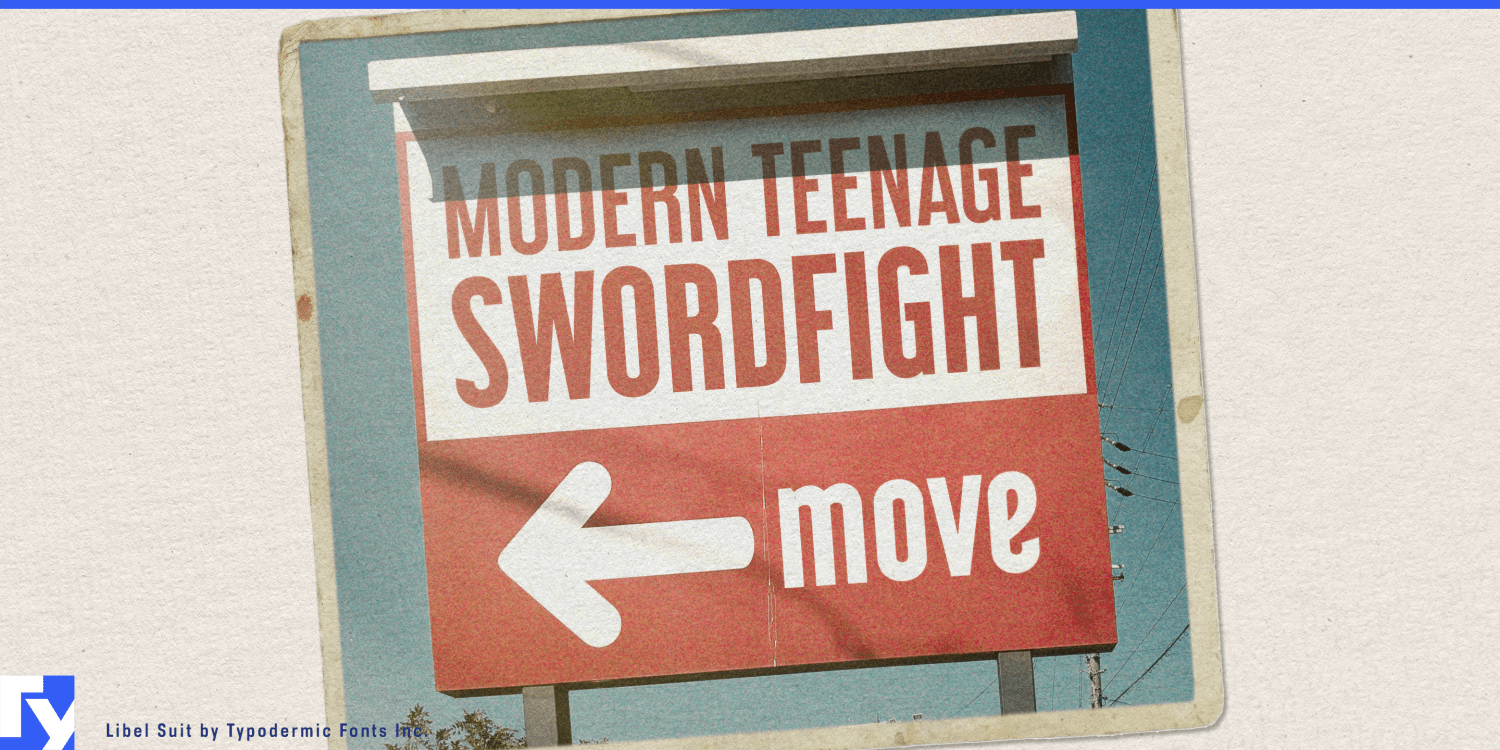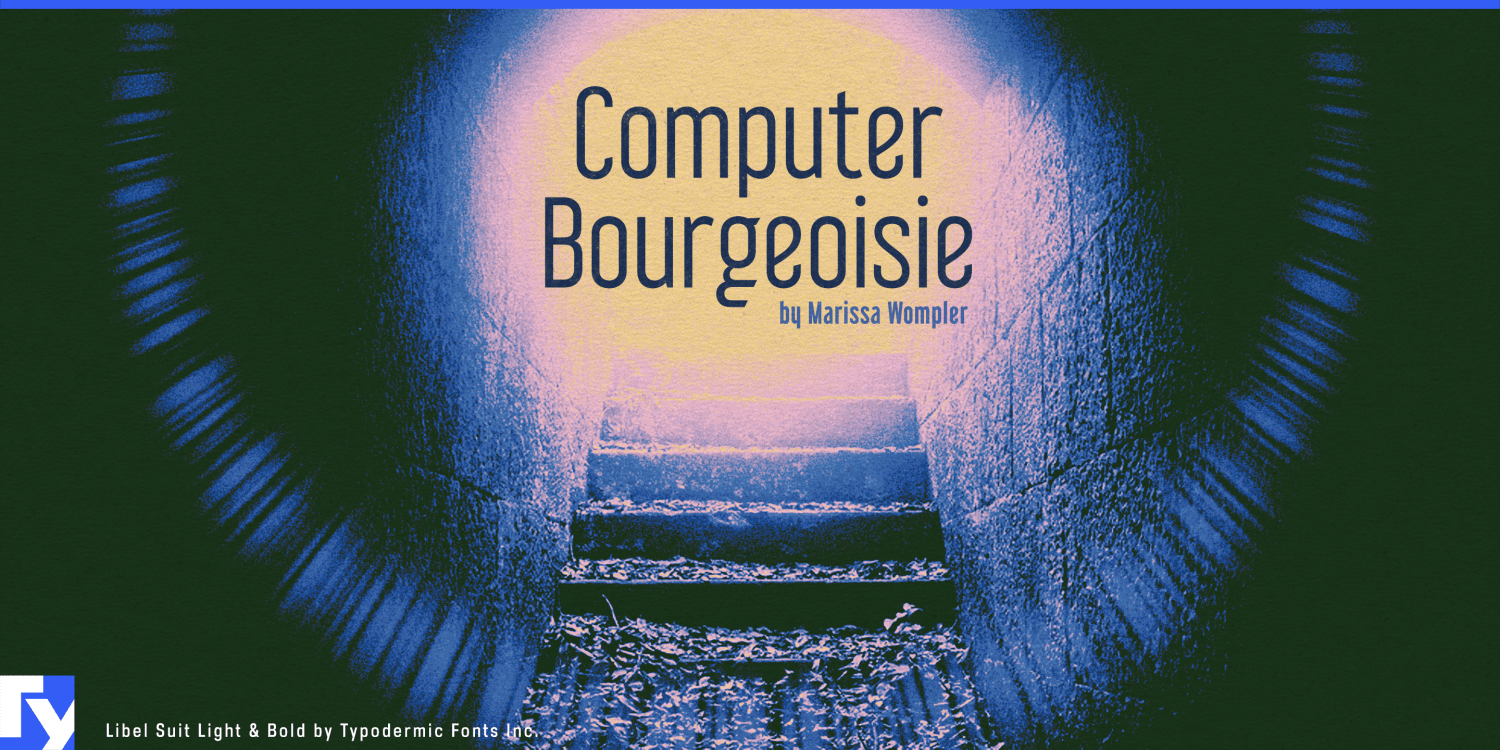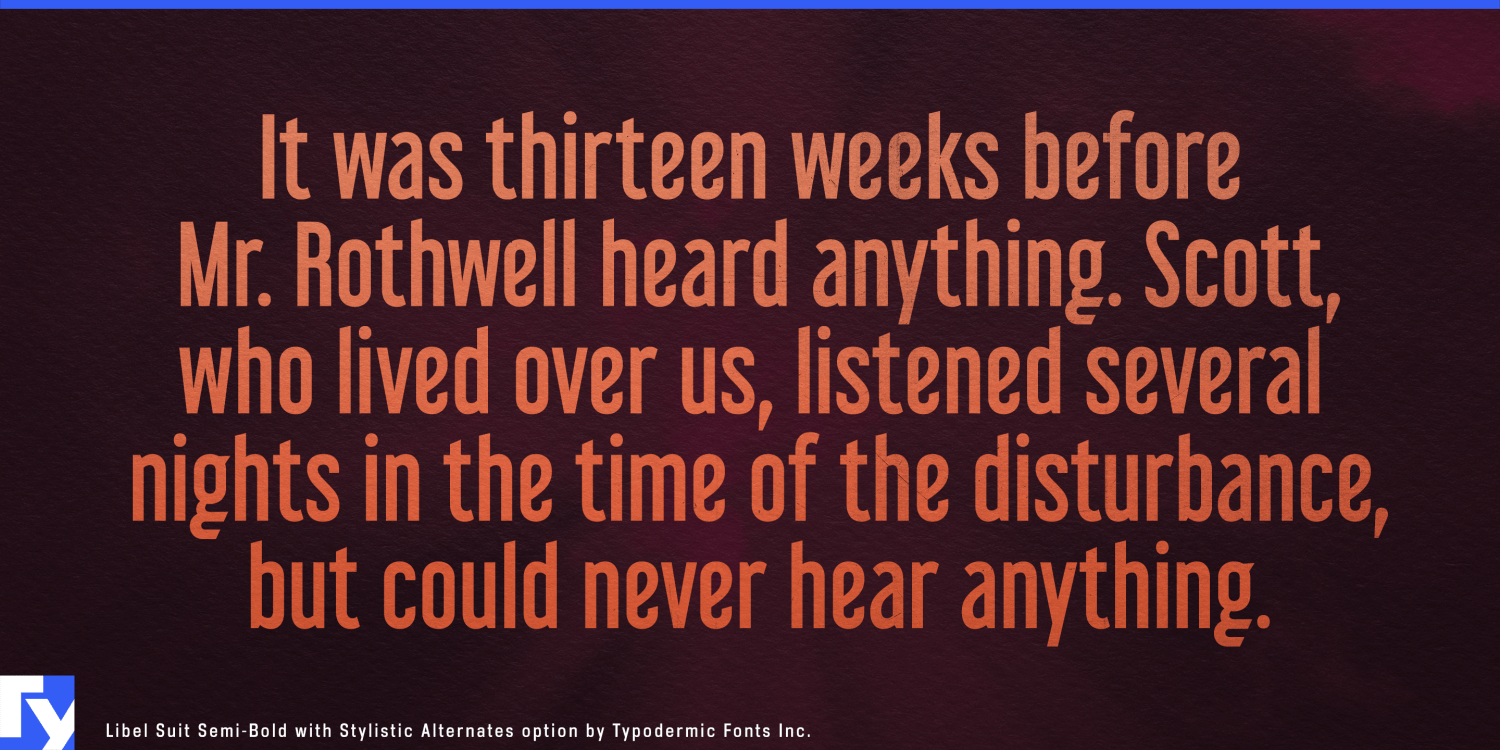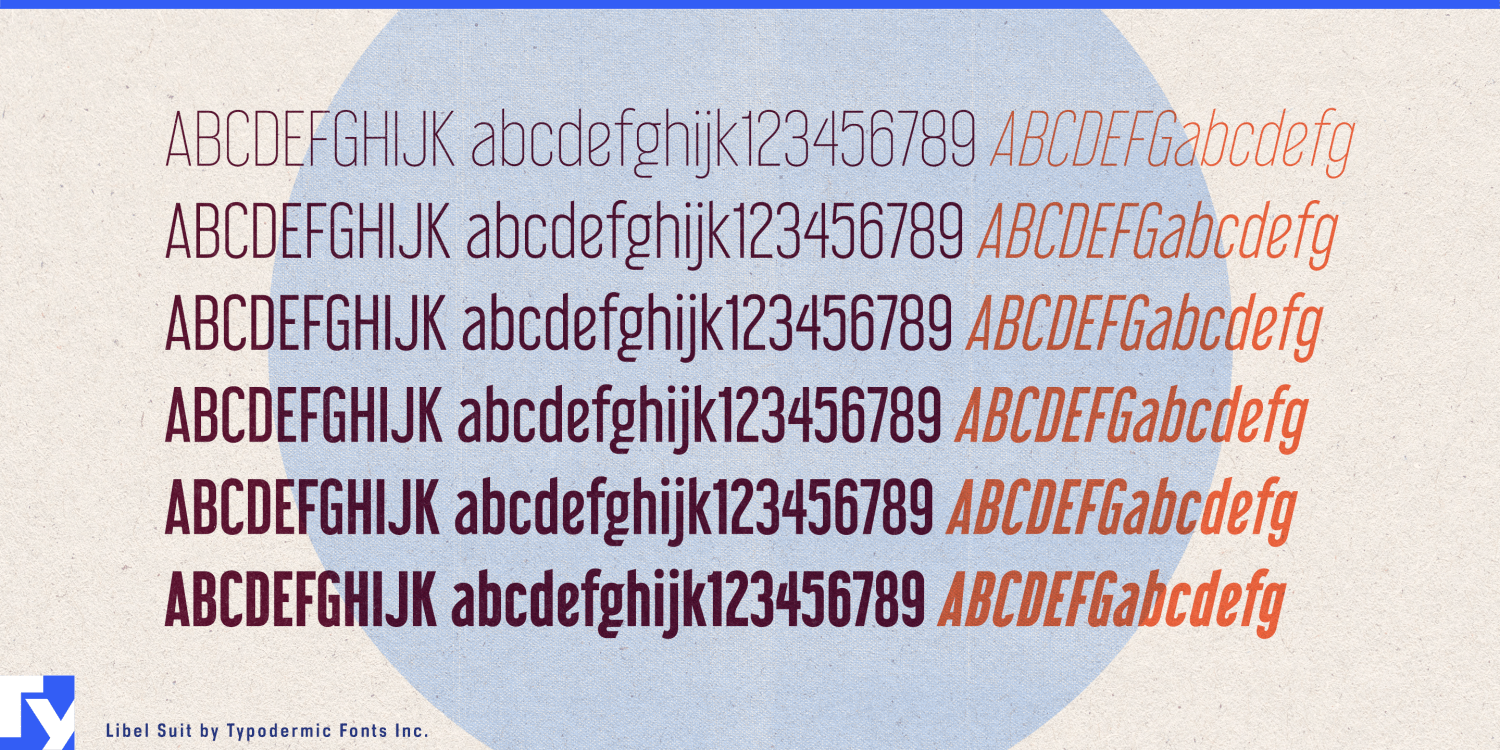
About Libel Suit
Meet Libel Suit—the sans-serif that’s more cutting-edge than a lawyer’s briefcase. This isn’t just a typeface; it’s a postmodern rebellion squeezed into sleek, efficient letterforms. Picture a font that’s been through…